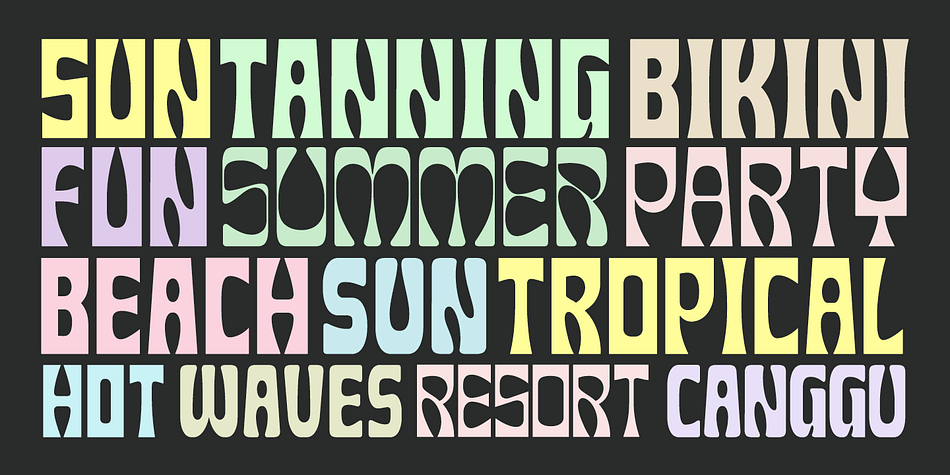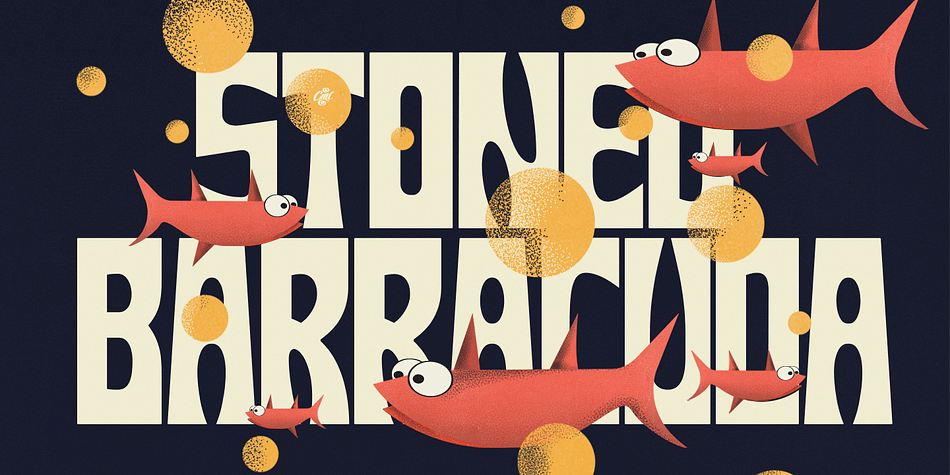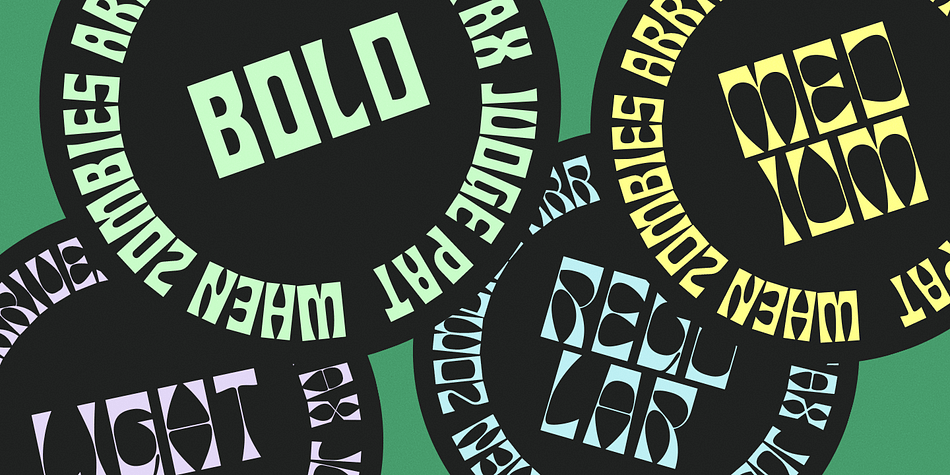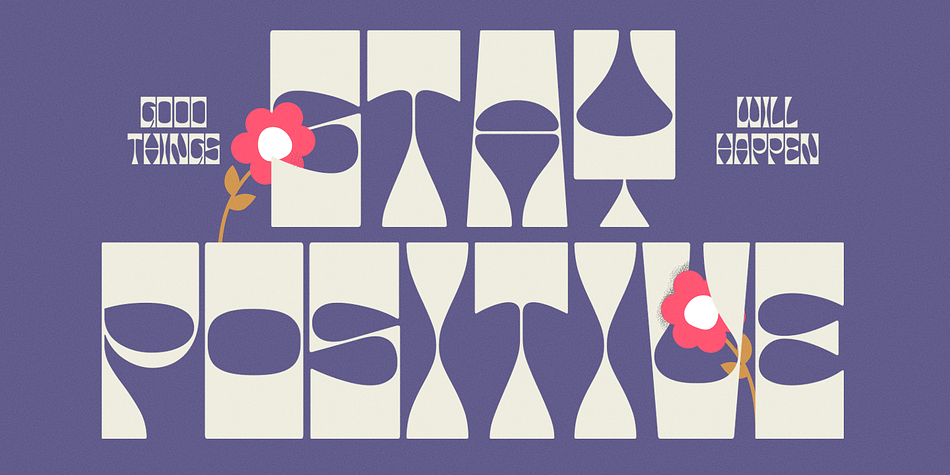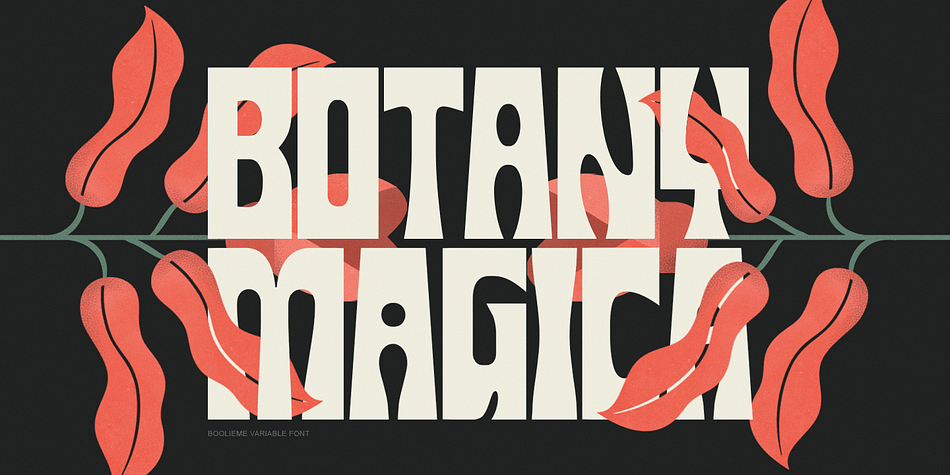
Boolieme
Boolieme is a display font family. This typeface has seventeen styles and was published by Creative Media Lab.
ntroducing Boolieme, a versatile display font with a fresh retro look. The font is in all capital letters, and it features four unique shape options, ranging from sharp edges to blunt edges. Additionally, it comes in four weights for each style, making it highly adaptable to suit your design theme.
Boolieme is a variable font, officially known as OpenType Font Variations, which means you can generate a lot of width and weight with the three available slider axes. This font will add a touch of fun and freshness to your designs, making it perfect for various applications such as clothing, illustration, packaging, logotype, book covers, titles, and more.